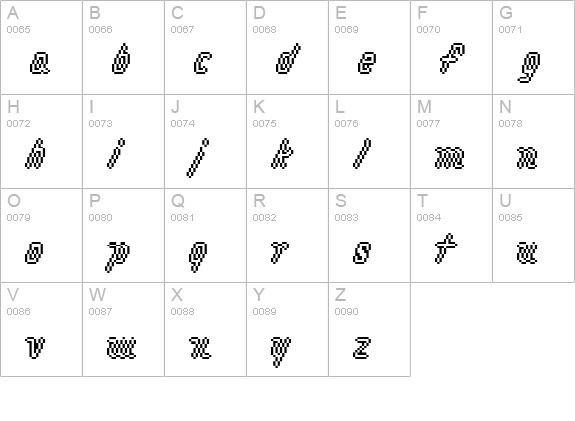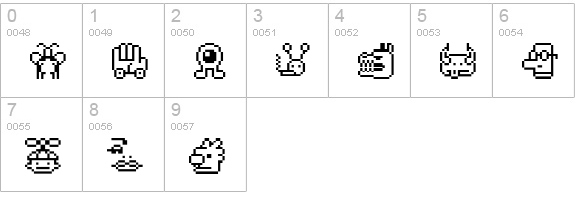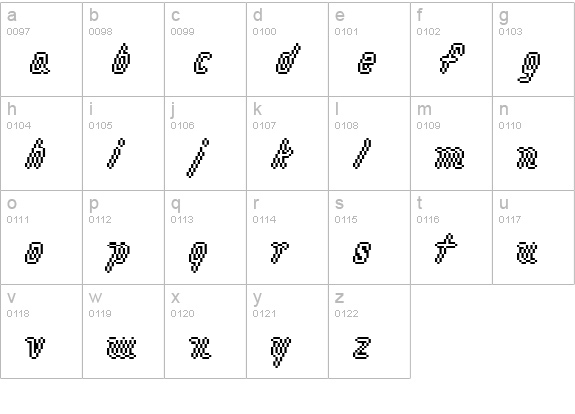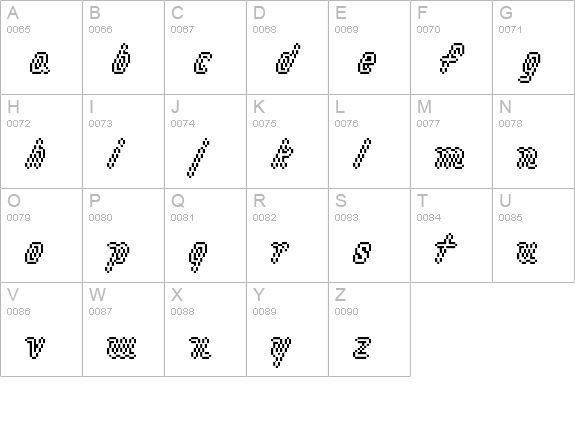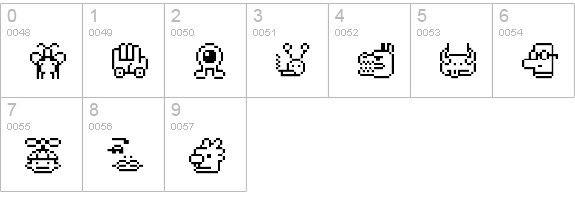
macrodigi Font Details
Macrodigi font is a stunning typeface that combines modernity with a touch of elegance. Its sleek and clean lines make it perfect for a wide range of design projects, from branding to signage and everything in between. With its sophisticated and versatile style, Macrodigi font is sure to make a bold statement and capture attention. What makes Macrodigi font even more remarkable is that it is available for free. Yes, you read that right - this incredible font can be yours without spending a dime. Thanks to FontsMarket.com, you can freely download Macrodigi font and start using it in your creative endeavors today. Whether you're a professional designer looking for a fresh and contemporary font or a hobbyist searching for a unique typeface to enhance your personal projects, Macrodigi font is the answer. Its high-quality design and wide range of available characters ensure that you have all the tools you need to bring your vision to life. Download Macrodigi font now at FontsMarket.com and unleash your creativity. With its free availability and exceptional design, you can't go wrong with this font choice. Don't miss out on the opportunity to elevate your designs with Macrodigi font - it's time to make a lasting impression.